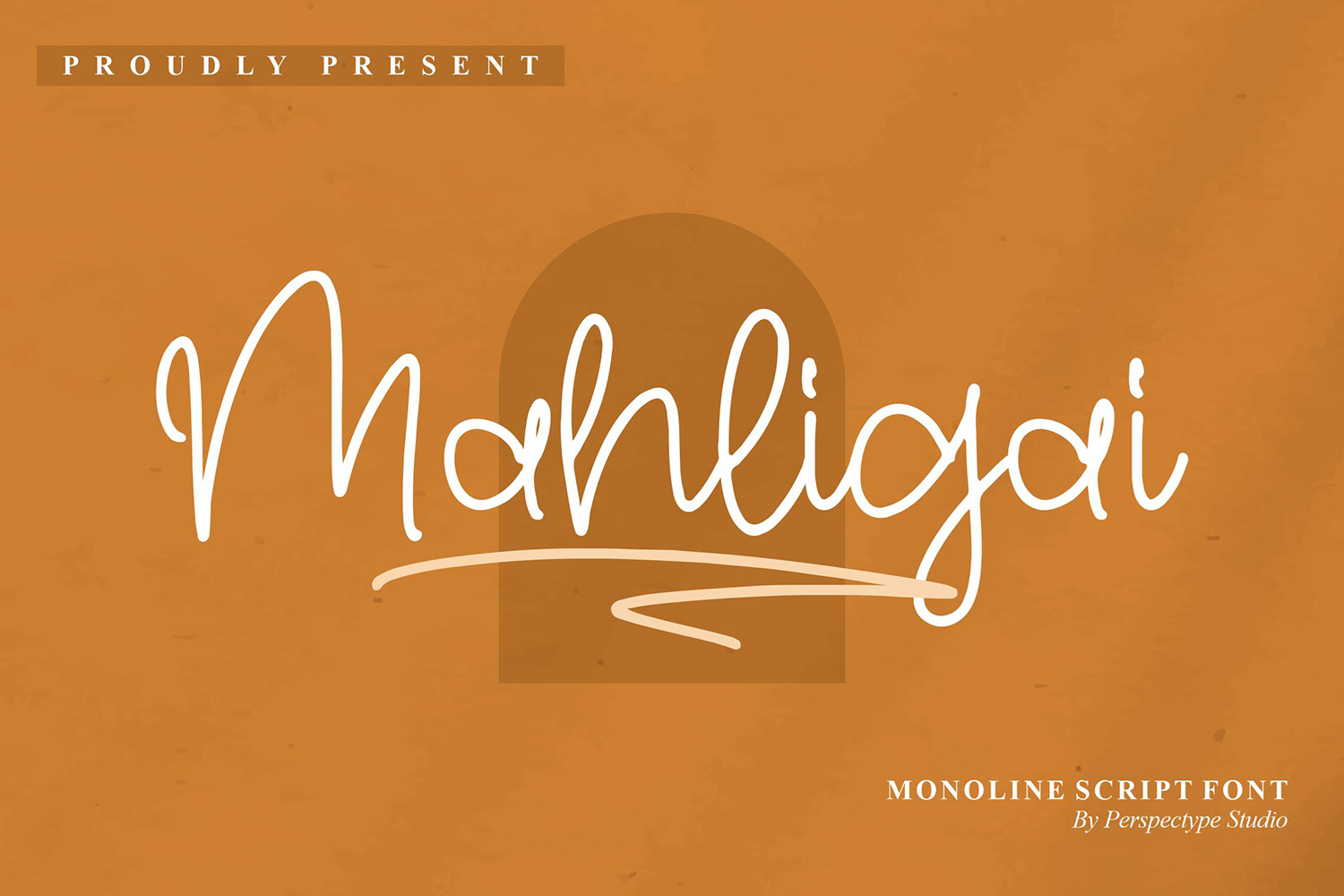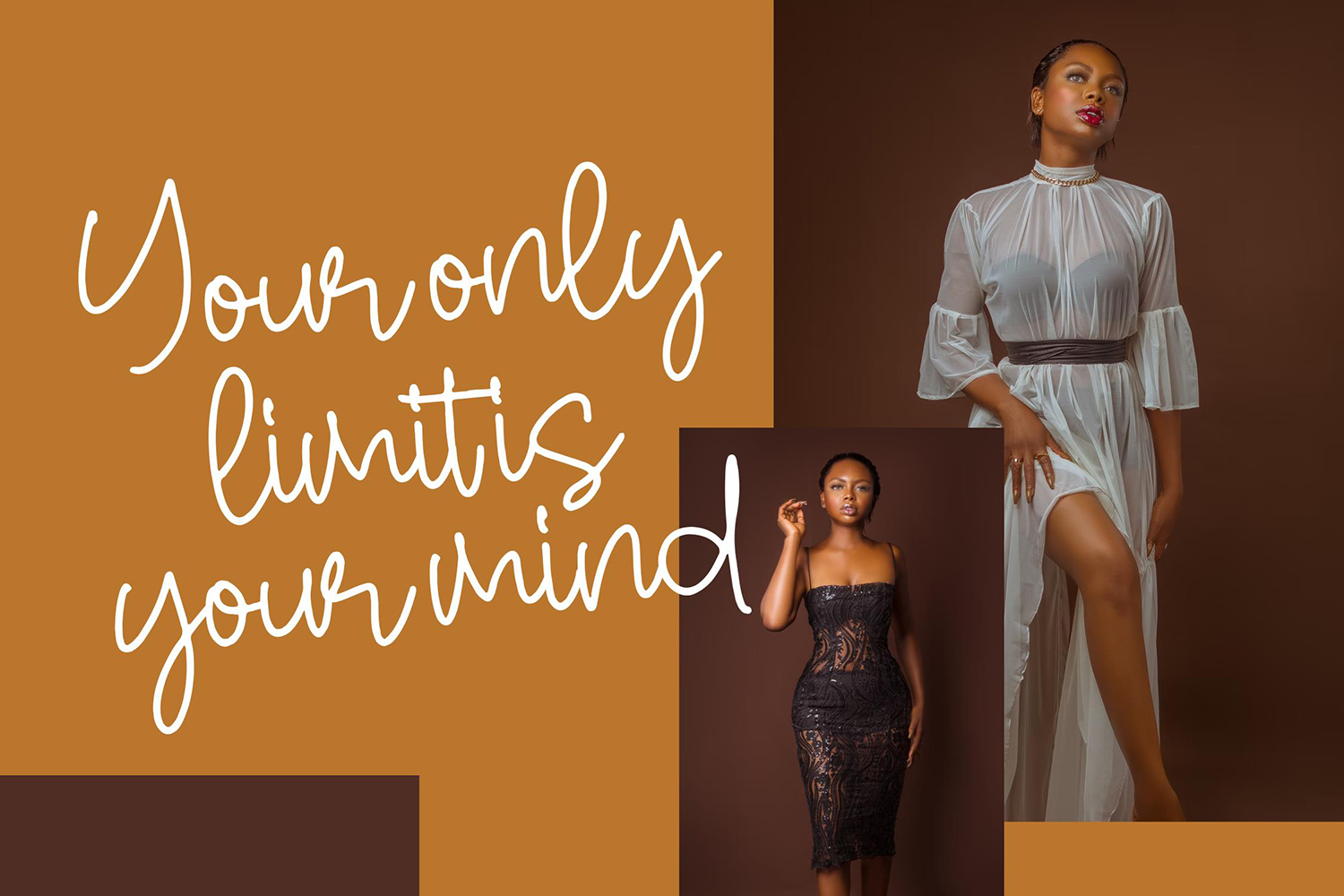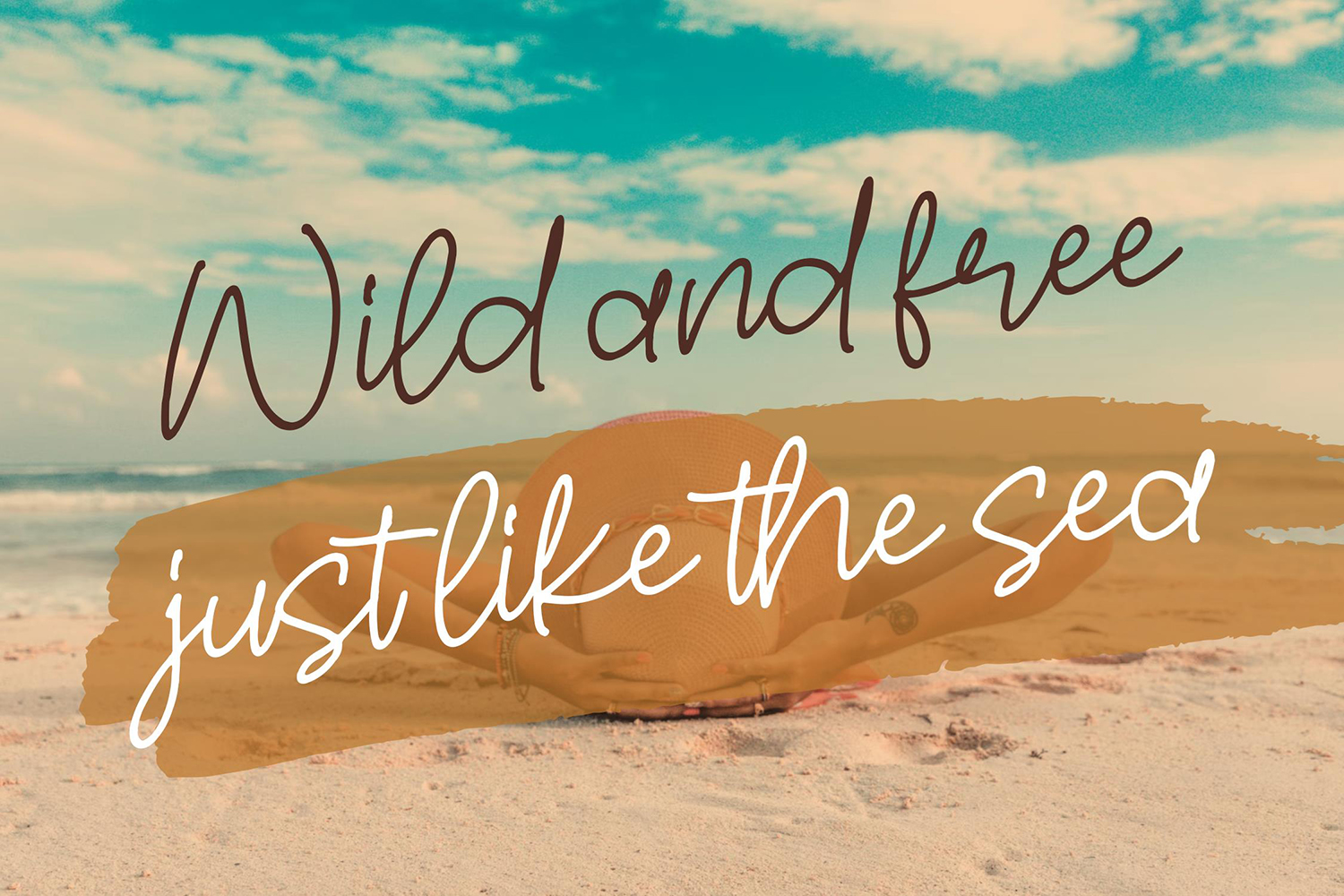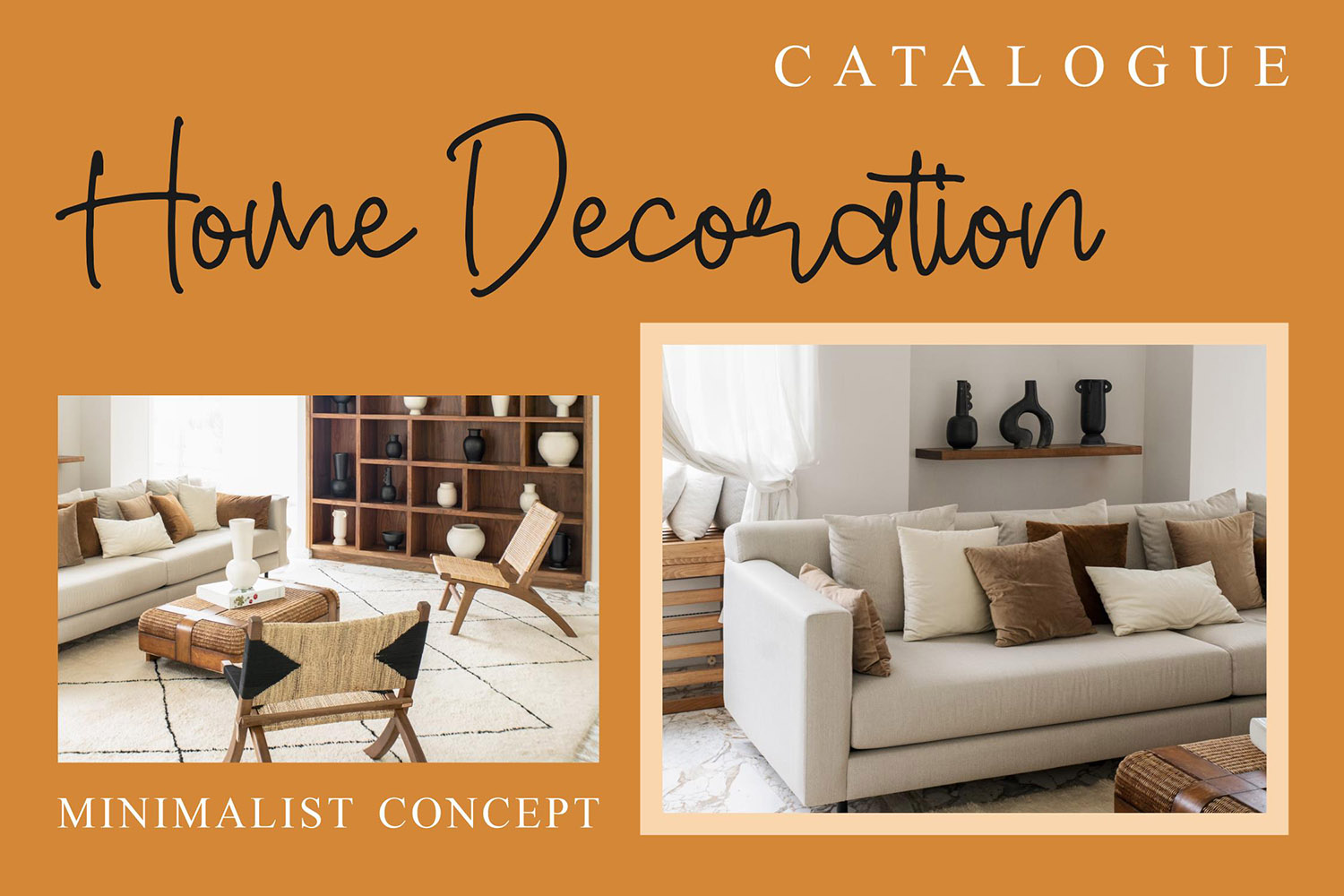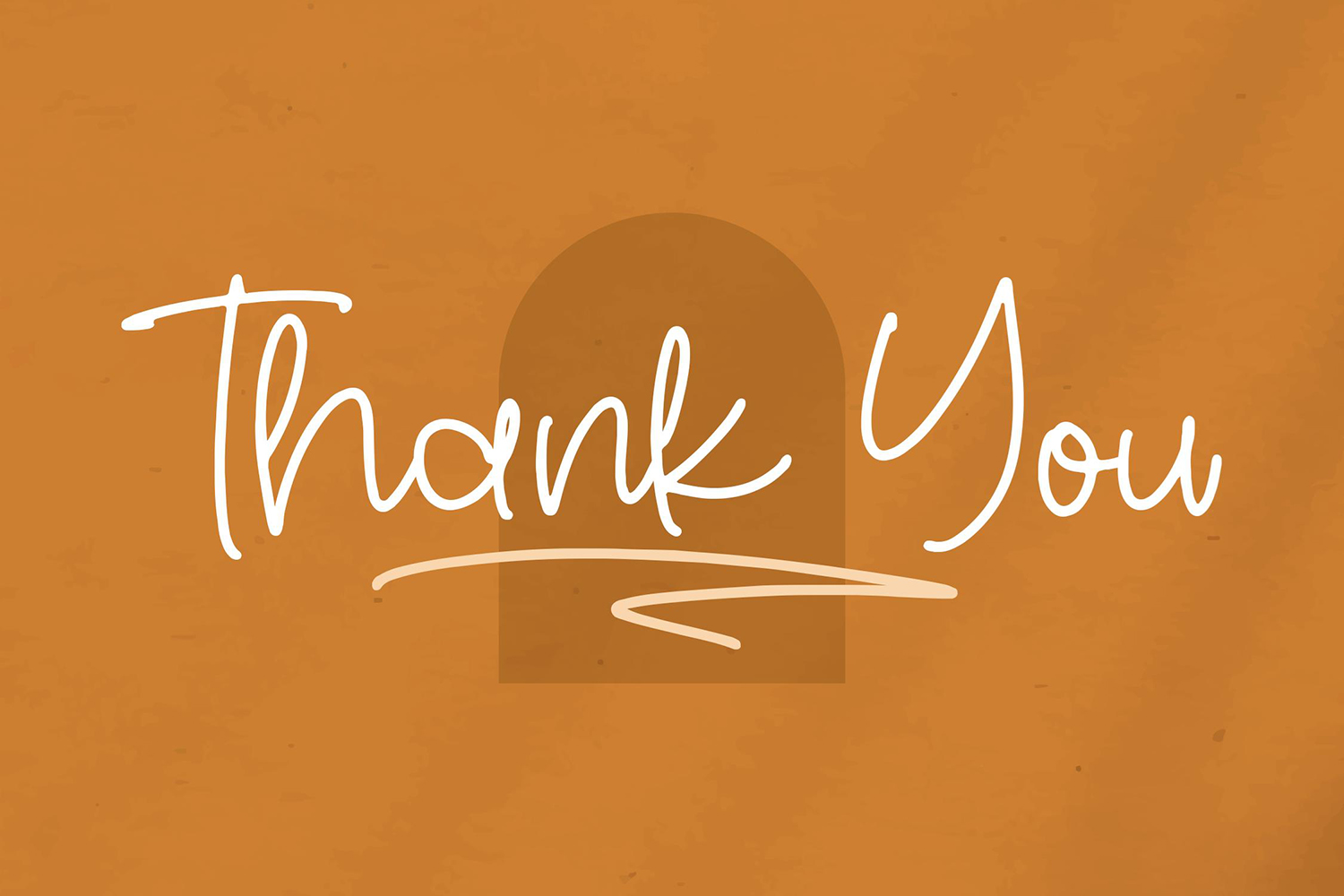
Mahligai Free Font is a sleek and modern monoline script font that exudes elegance and sophistication. With its smooth and fluid lines, this font is perfect for creating eye-catching headlines, titles, and branding materials. The font’s unique style is inspired by traditional handwriting calligraphy that gives it an authentic and timeless feel. Whether you’re looking to add a touch of class to a wedding invitation or design a professional-looking logo, Mahligai Free Font is sure to make your project stand out.